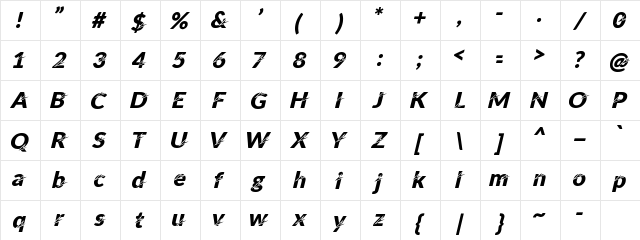
STING Regular
| Designer | Upansulfan |
Design Context for STING Typeface
STING is a composed and adaptable typeface that performs quietly and consistently across a wide range of design contexts.